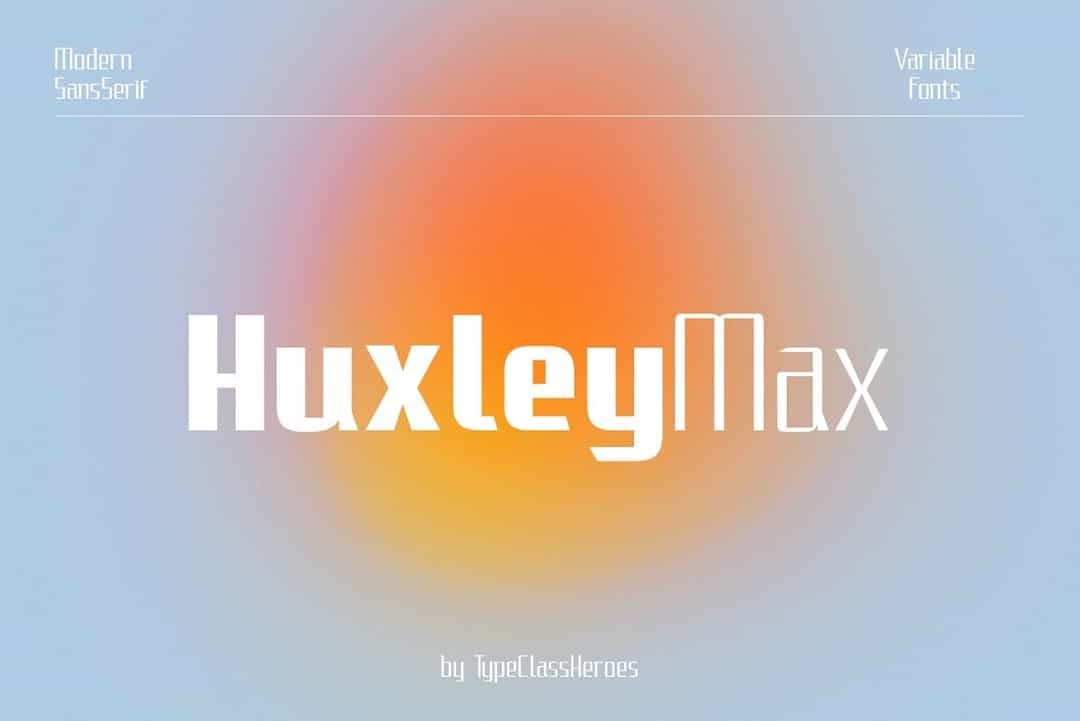
HuxleyMax is an eye-catching contemporary sans-serif show font with multiple sizes and weights that you can blend to find your perfect reading rhythm and experience. Variable in nature, this font offers multiple design possibilities and compositional solutions.